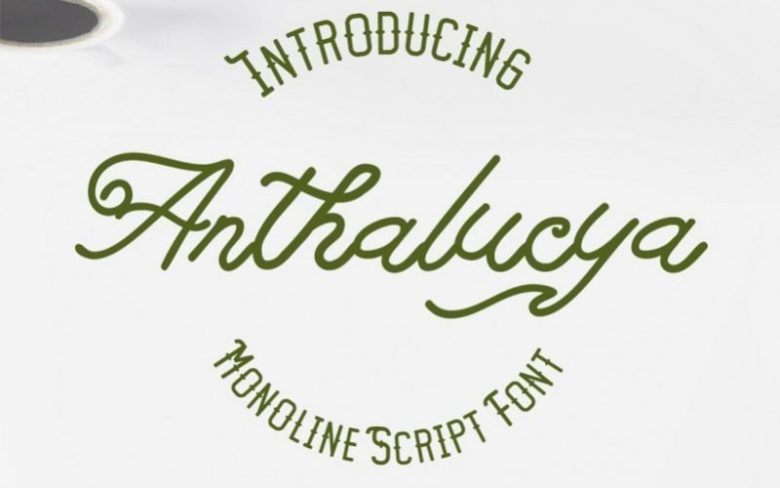
Anthalucya Handwritten Font
Anthalucya a very beautiful and unique Monoline Script font that comes retains my personality within the characters as they were initially based off my own handwriting and later tidied up to create a set of consistent characters so it is suitable for your design needs such as printed quotes, invitation cards, social media, product packaging, Website, logotype and many more!